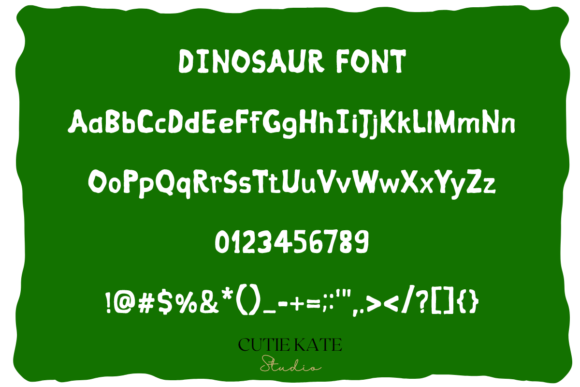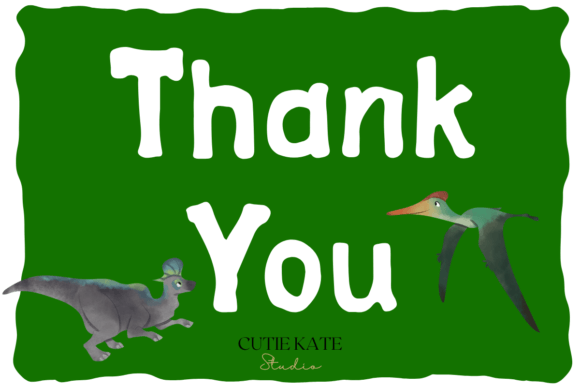
Dinosaur Font: The Ultimate Fun and Casual Simple Font for Designers and Crafters
Are you tired of using the same old fonts for your designs and crafts? Look no further! Introducing Dinosaur Font, a fun and casual simple font that’s perfect for a variety of projects. Whether you’re a designer, crafter, or simply someone who loves to get creative, this font is sure to become your new go-to.
What is Dinosaur Font?
Dinosaur Font is a unique and playful font that’s designed to add a touch of whimsy to your projects. With its simple and clean design, it’s perfect for use in a variety of applications, from digital designs and presentations to crafts and greeting cards.
Why You’ll Love Dinosaur Font
So, what makes Dinosaur Font so special? Here are just a few reasons why you’ll love using this font:
- Fun and playful: Dinosaur Font has a fun and playful vibe that’s perfect for projects that need a bit of personality.
- Simple and clean: The font’s simple and clean design makes it easy to read and use in a variety of contexts.
- Versatile: Dinosaur Font is perfect for use in a wide range of projects, from digital designs and presentations to crafts and greeting cards.
Uses for Dinosaur Font
Dinosaur Font is perfect for use in a variety of projects, including:
- Crafts: Add a personal touch to your crafts, such as scrapbooking, card making, and DIY projects.
- Digital design: Use Dinosaur Font in your digital designs, such as social media graphics, blog posts, and website headers.
- Presentations: Add some personality to your presentations with this fun and engaging font.
- Greeting cards: Create personalized greeting cards for special occasions, such as birthdays, holidays, and anniversaries.
Tips for Using Dinosaur Font
Here are a few tips for getting the most out of Dinosaur Font:
- Experiment with different sizes: Try using Dinosaur Font in different sizes to add visual interest to your projects.
- Pair with other fonts: Combine Dinosaur Font with other fonts to create a unique and eye-catching look.
- Use in combination with images: Add Dinosaur Font to your images, such as photos and illustrations, to add context and personality.
| Font Name | Dinosaur Font |
| Author | Cutie Kate Studio |
In conclusion, Dinosaur Font is a fun and casual simple font that’s perfect for designers, crafters, and anyone who loves to get creative. With its playful and whimsical vibe, it’s sure to become your new go-to font for a wide range of projects. So why not give it a try and see what amazing creations you can come up with?